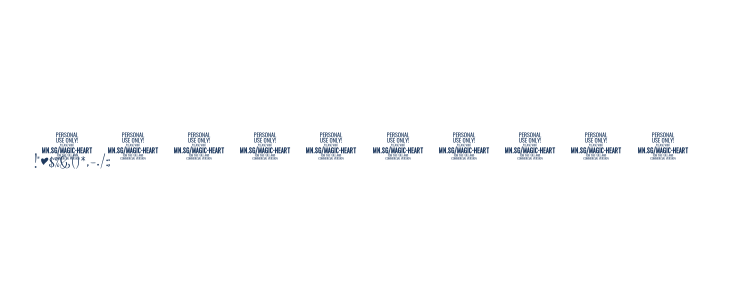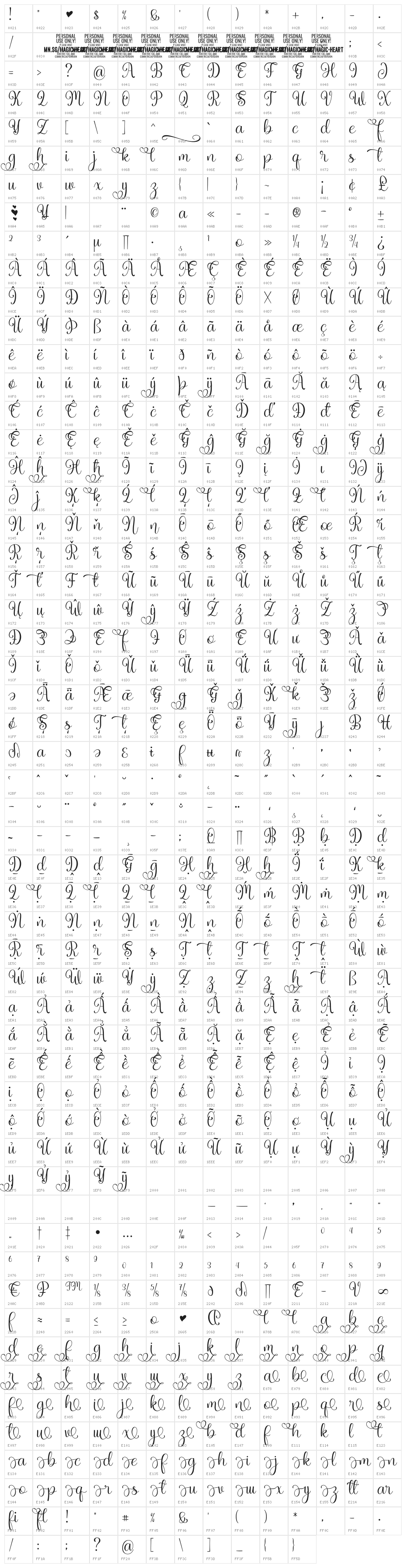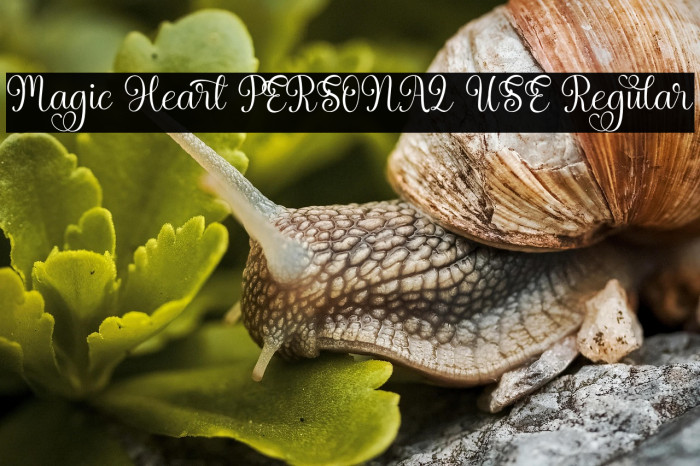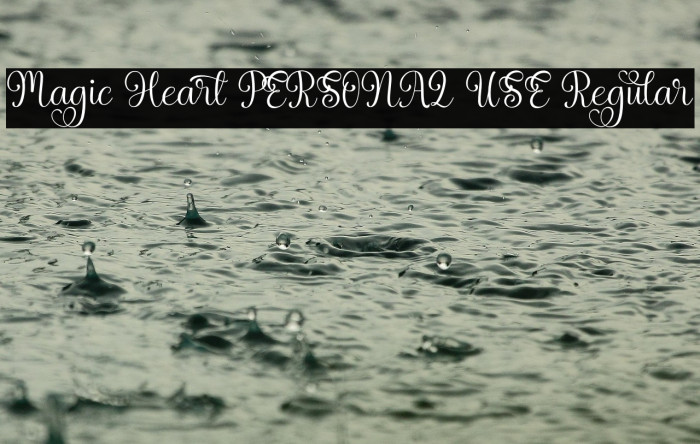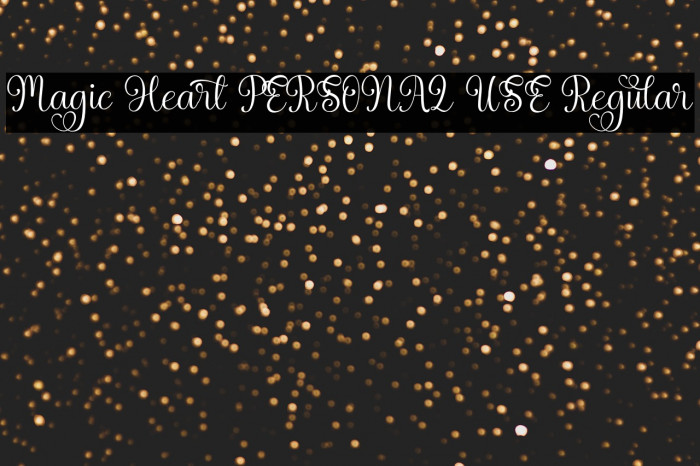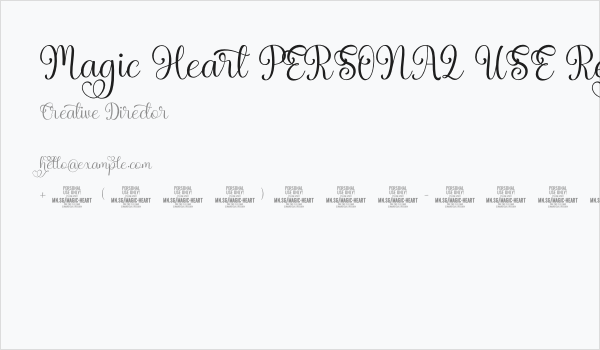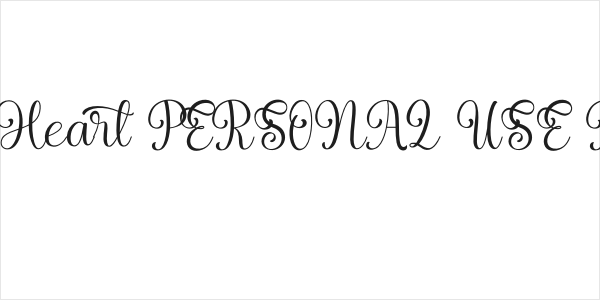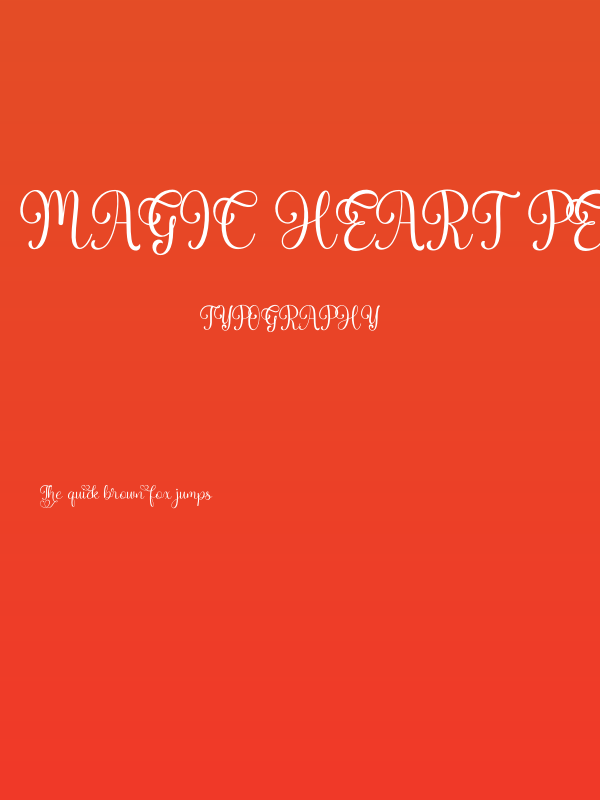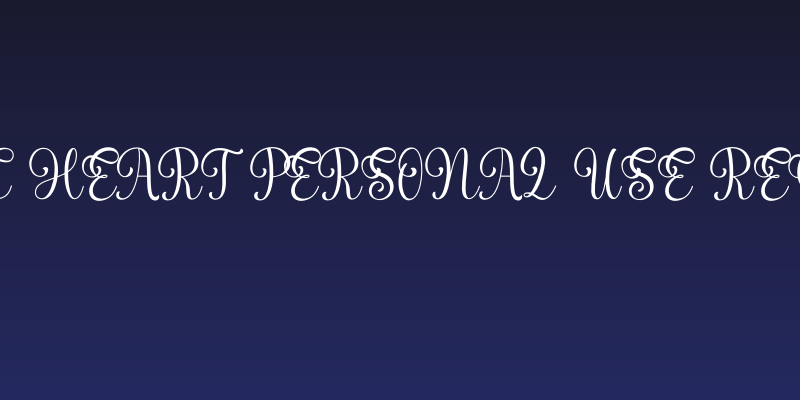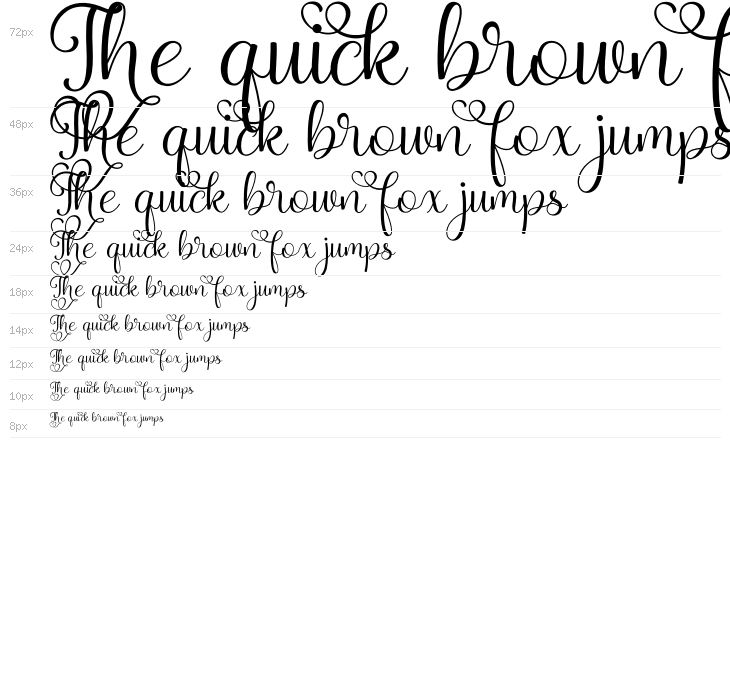
Magic Heart PERSONAL USE Regular Font
Magic Heart PERSONAL USE Regular Description
This font features an elegant and whimsical script style with intricate swirls and loops, giving it a romantic and playful appearance. The uppercase letters are adorned with decorative flourishes, while the lowercase letters maintain a more fluid and connected script form. The font includes a variety of special characters, such as hearts and punctuation marks, which enhance its decorative appeal. The overall design is highly stylized, making it suitable for creative and expressive projects. Its unique character shapes and embellishments make it stand out, adding a touch of charm and sophistication.